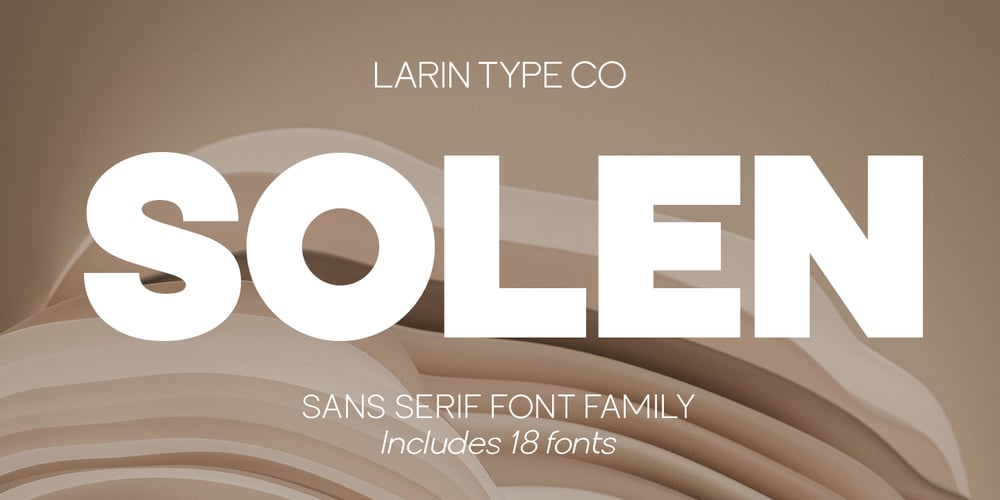
Solen
Solen font
Solen Font Family was designed by Pavel Larin and published by Larin Type Co. Solen contains 18 styles and family package options. Solen this is a modern sans-serif font that includes nine weights from thin to black and nine weights in Italic style.This multi-purpose font captures a huge range for the design and creation of your project.Solen family will perfectly cope with a variety of tasks and he will always look stylish and modern. With it, you can create logos, labels, use in advertising, packaging, branding, book covers and magazines, cosmetics, banners, posters, headings, descriptions and much more. This font is easy to use has OpenType features. Full alphabet with Uppercase and Lowercase A-z Numbers, fractions Punctuation and symbols Alternates for Uppercase “A, E, K, M, N, U” Alternates for Lowercase “a, g, k, t, y” Multilingual support